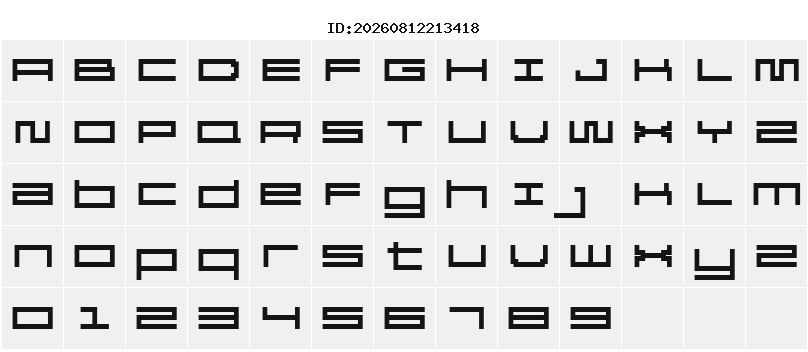
• Font Name: Reversion
• Designer: Michael Cina
• Manufacturer: YouWorkForThem
About Reversion.ttf
Reversion.ttf is a modern, elegant sans-serif font designed for ultimate readability and visual harmony. Perfect for branding, headlines, web design, and print materials.